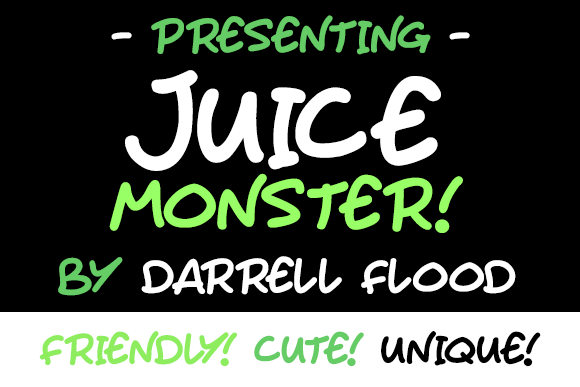
Juice Monster Font
About Juice Monster Font
Juice Monster is a cute, hand drawn font in an ultra casual style. It comes in two variations and is perfect for quirky product labels and comic themes!